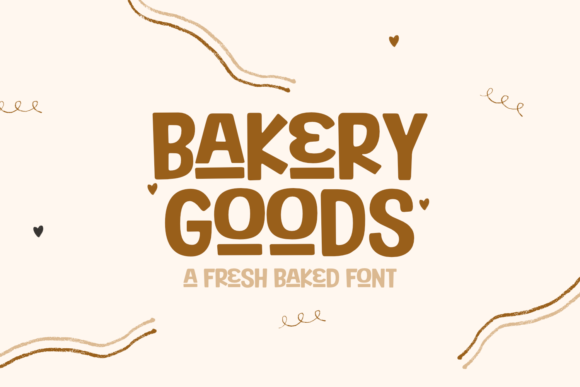
Bakery Goods Font: A Vintage Styled Display Font for Crafty Ideas
In the world of typography, fonts play a crucial role in conveying the tone and personality of a brand or design. When it comes to creating visually appealing and distinctive content, selecting the right font is essential. For those seeking a unique and adaptable display font, Bakery Goods Font is an excellent choice. This cool, vintage-styled font is perfect for a wide range of crafty ideas, from letterheads and titles to stationery.
What is Bakery Goods Font?
Bakery Goods Font is a carefully crafted display font that boasts a distinctive, vintage look. Its original design makes it an ideal choice for creative projects that require a touch of nostalgia and charm. The font’s adaptability and versatility ensure that it can be used across various platforms, from digital media to print materials.
Key Features of Bakery Goods Font
- Vintage Style: Bakery Goods Font features a classic, vintage design that evokes a sense of nostalgia and timelessness.
- Adaptable: This font is highly adaptable and can be used for a wide range of creative projects, from titles and letterheads to stationery and more.
- Cool and Unique: The font’s distinctive look sets it apart from more traditional fonts, making it perfect for those seeking to add a touch of personality to their designs.
- Display Font: Bakery Goods Font is specifically designed as a display font, making it ideal for headlines, titles, and other prominent text elements.
Uses of Bakery Goods Font
Bakery Goods Font is a versatile font that can be used in a variety of creative projects. Some of the most popular uses for this font include:
- Letterheads and Stationery: Add a touch of vintage charm to your letterheads and stationery with Bakery Goods Font.
- Titles and Headlines: Use this font to create eye-catching titles and headlines for your blog posts, articles, and other written content.
- Branding and Packaging: Bakery Goods Font is perfect for creating distinctive brand identities and packaging designs that stand out from the crowd.
- Invitations and Announcements: Create beautiful, vintage-inspired invitations and announcements with this font.
Benefits of Using Bakery Goods Font
There are several benefits to using Bakery Goods Font in your creative projects. Some of the most significant advantages include:
- Unique and Distinctive: This font’s vintage style and adaptable design make it a unique and distinctive choice for creative projects.
- Easy to Read: Despite its ornate design, Bakery Goods Font is surprisingly easy to read, making it perfect for use in titles, headlines, and other prominent text elements.
- Customizable: This font can be easily customized to suit your specific design needs, allowing you to create a truly unique look.
- Supports Multiple Languages: Bakery Goods Font supports multiple languages, making it a great choice for global brands and businesses.
Tips for Using Bakery Goods Font Effectively
To get the most out of Bakery Goods Font, follow these tips:
- Use it Sparingly: While Bakery Goods Font is a beautiful font, it’s best used sparingly to avoid overwhelming the reader.
- Pair it with a Simple Font: Pair Bakery Goods Font with a simple, sans-serif font to create a striking contrast.
- Experiment with Colors and Textures: Don’t be afraid to experiment with different colors and textures to add depth and interest to your designs.
- Keep it Consistent: Use Bakery Goods Font consistently across your designs to create a cohesive brand identity.
Bakery Goods Font is a unique and adaptable display font that’s perfect for creative projects that require a touch of vintage charm. Its distinctive design, ease of use, and customizability make it an excellent choice for a wide range of applications, from letterheads and titles to stationery and more. By following the tips outlined above, you can use Bakery Goods Font to create visually appealing and effective designs that stand out from the crowd.